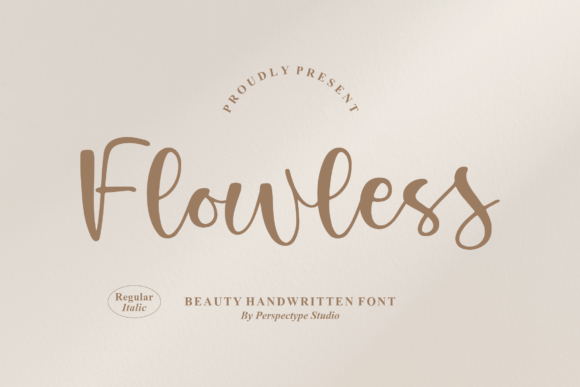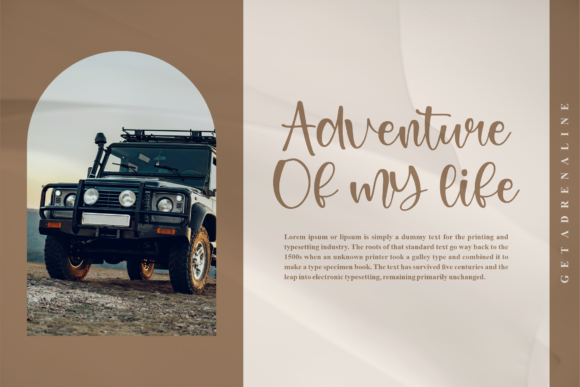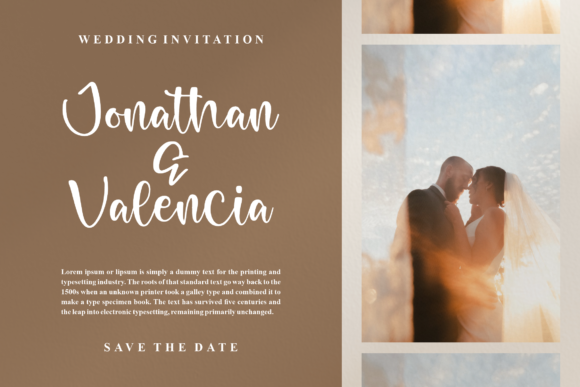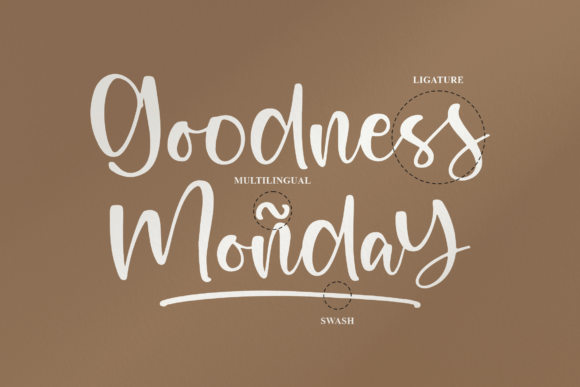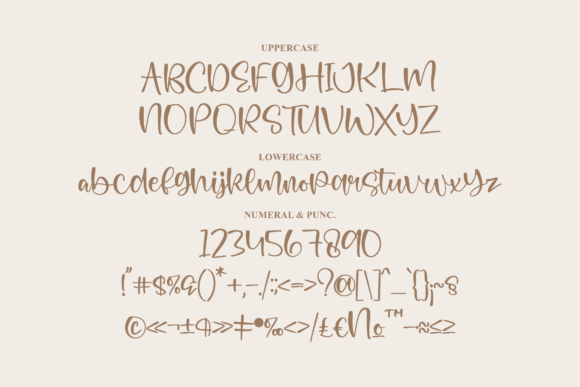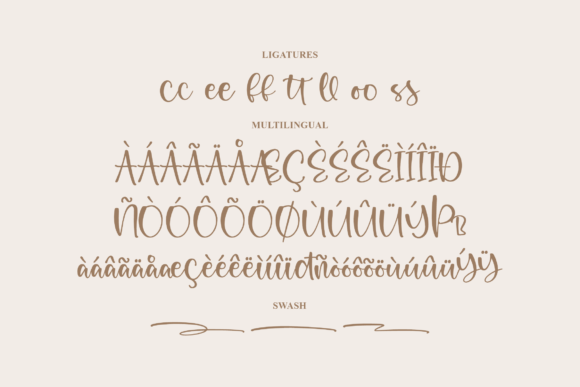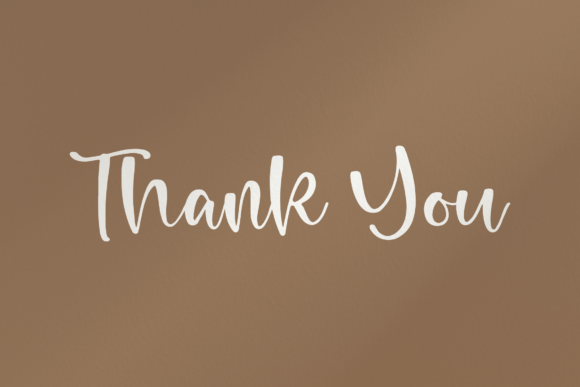
About Flowless Font
Flowless is a stunning script font designed to add a touch of elegance and fluidity to a wide range of creative projects. Whether you’re packaging products, designing invitation cards, crafting flyers, creating mockups, or promoting events through posters, Flowless delivers high-quality vibes that elevate your designs to new heights.
With its free-flowing strokes and graceful curves, Flowless exudes a sense of sophistication and charm. Each character is meticulously crafted to achieve a beautiful and balanced appearance, ensuring seamless integration with a variety of design styles and aesthetics.
This font’s versatility makes it a perfect choice for a diverse range of applications. Whether you’re working on a minimalist packaging design or a vibrant event poster, Flowless effortlessly adapts to your needs, adding a touch of flair and personality to every project.
One of the key features of Flowless is its PUA encoding, which grants you easy access to all glyphs and swashes. This means you can effortlessly customize your designs, adding embellishments and flourishes to enhance visual appeal and create a unique look that stands out from the crowd.
In summary, Flowless is more than just a font—it’s a versatile tool that empowers designers to unleash their creativity and bring their vision to life with style and elegance. Whether you’re a seasoned professional or a passionate enthusiast, this font invites you to explore new possibilities and create stunning works of art that leave a lasting impression.